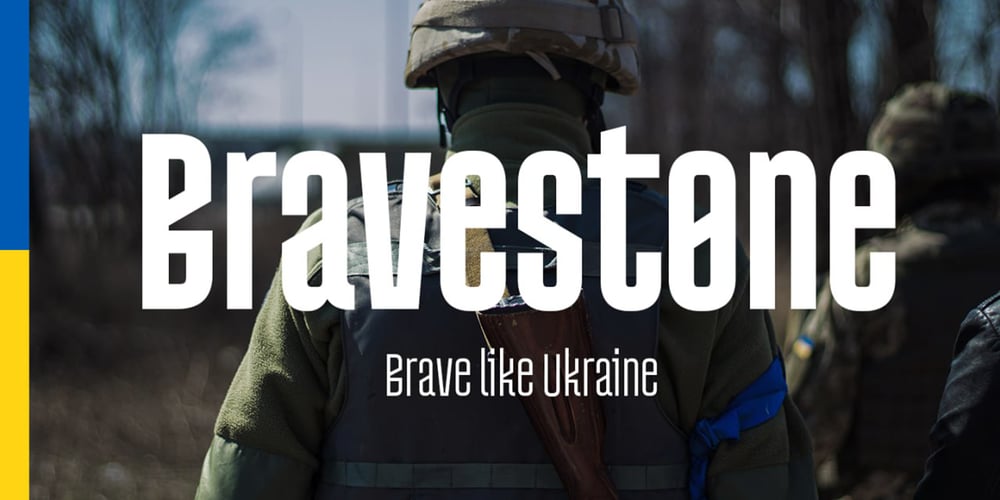
Bravestone Font Family was designed by Kyrylo Tkachov, Serhii Makarenko and published by AlfaBravo. Bravestone contains 7 styles and family package options. Sans serif family Bravestone combine some of traditional cyrillic Vyaz with contemporary vision. It makes a beautiful contrast that works really well with a modern design. Bravestone is designed for logos, titles, book covers, and branding identity. You can also use it for small text fragments.